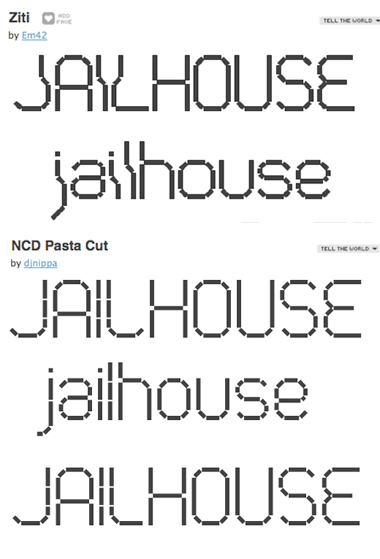
Hee hee hee, the sample for this one should be delicious!
Just lovely! Everybody, check Em’s blog (and Behance post) linked from the image above for even more yumminess.
So Em, did you cook the ziti first to get the graceful curves in the real deal?
Thanks Will, I spent the whole Sunday morning with my friend Gi cooking pasta and cutting it into pieces for the sample images, and we had a lot of fun.
And I'm glad you like the curves: we struggled a lot (unsuccessfully) to keep the pasta as straight as possible to reproduce the FontStruction appearance.
Mmm, yummy, tricky font, I bet it tastes even better with ketchup on! ;)
P.S. Great idea to mimic the shapes of cut spaghetti!
I'm not so sure about the kink in I,J,L,I,J,L,1 it looks like a print error. Have you tried them straight with slight gaps in between. Also have you tried narrowing the width of the lower case, to balance better with the upper? It seems a little wide at the moment. Here's an example of what I mean.
@Sahwar: Thanks for your comment! (FYI: Italians would never eat pasta with ketchup :)
@DJNippa: First thanks for the suggestions and for creating your version of Ziti, I'm flattered.
This fontstruction started as a faux lcd font: the lower case width is almost the same as the upper case width (just one brick narrower) to simulate the monospaced nature of LCD text, and some letters have kinks to simulate the quirkiness that characters based on LCD have.
As concerning the gap, it would have broken the design rule I set for designing this set (as I usually do :) that all the sections should have been connected at the corner.
I only did my version to explain my concerns clearly.
So if it started out as an LED font, but now it's not, then it's already changed into something else. The lower case in my opinion is like an expanded version of the uppercase. To still keep your rule then what about maybe try this.
Delicious! A great entry for the homemade competition. You can really sense the fun that went into it.
yummy.
Felice di stare qui. Non abbiamo nulla da fare contro la squadra Azzurra. Bravo ancora un altra volta, FSmaster.
Happy to be here. We have nothing to do against the squadra Azzurra. Bravo yet another time, FSmaster.
@Elmoyenique: Ha ha, I think this is the first comment in Italian on FontStruct! Grazie!
For me this is the strongest work for Hanmadecomp... the font is beautiful and the real world application is great. Bravo Em42 you have a sharp design eye.
MY FAVE HANDCOMP :)
@Upixel: your words are too kind!
This font indeed was started before the handmade competition rolled out, but the name and the concept were already there.
The competition was just the occasion to finalize and release it, and of course to cook the sample!
what's next? fettucine?